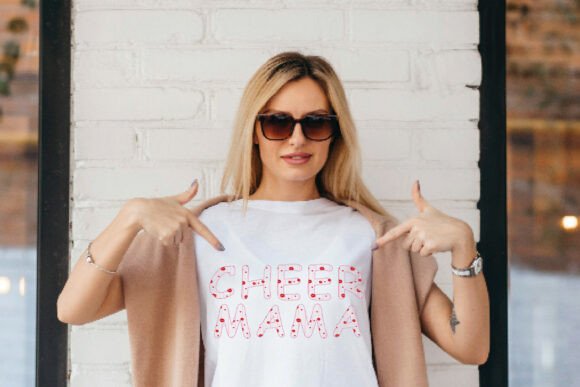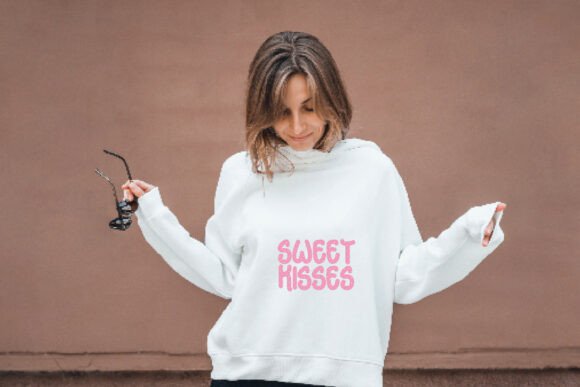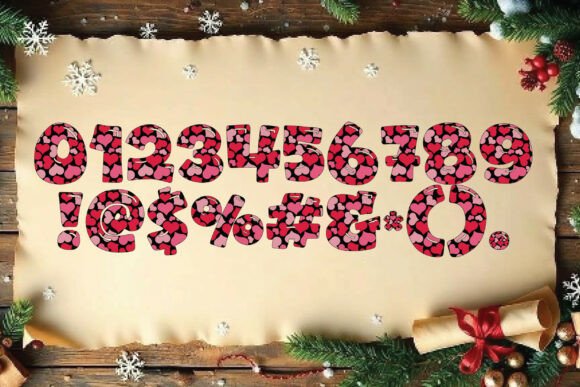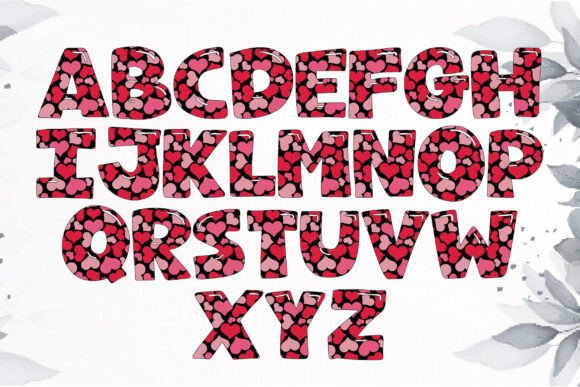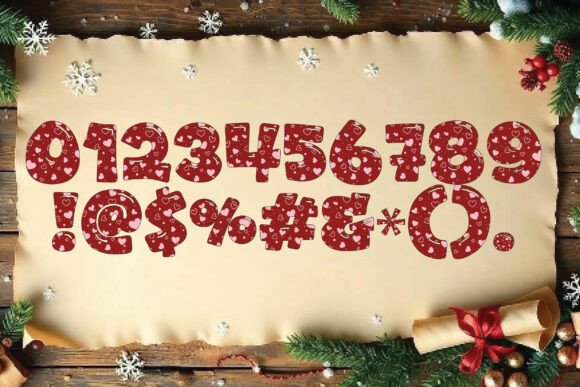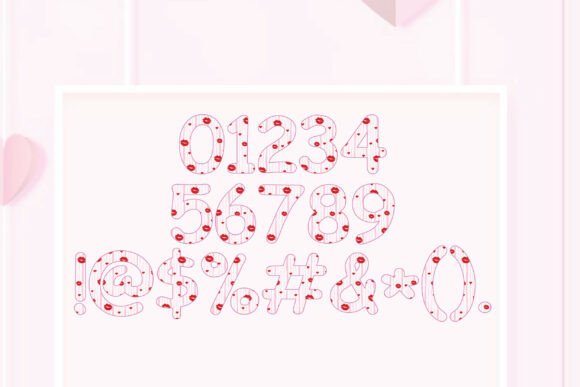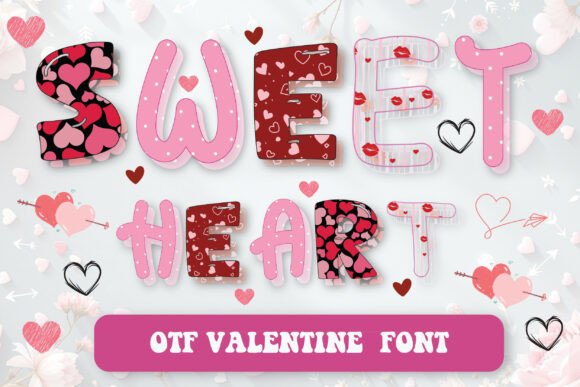
💖 Berry Dot & Valentine Font Bundle – Preppy Cute Love Alphabets
Are you looking for a way to add a touch of sweetness, romance, and trendy preppy style to your designs? Look no further than the Berry Dot & Valentine Font Bundle! This charming collection includes four adorable fonts that combine playful dotted lettering with classic Valentine love themes, perfect for a wide range of creative projects.
The Berry Dot & Valentine Font Bundle includes four unique fonts, each with its own special character:
• • Berry Dot Font – A fun and playful dotted-style lettering font that’s perfect for adding a touch of whimsy to your designs.
• • Preppy Love Font – A trendy and stylish love-themed font that’s ideal for creating modern and eye-catching designs.
• • Valentine Heart Font – A cute alphabet decorated with heart details, perfect for adding a touch of romance to your designs.
• • Valentine Love Font – A romantic and decorative Valentine lettering font that’s ideal for creating beautiful and elegant designs.
The Berry Dot & Valentine Font Bundle is perfect for a wide range of creative projects, including:
• • Valentine’s Day cards and love notes
• • Planners and stickers
• • Mugs and t-shirts
• • Scrapbooking and party decorations
• • Classroom crafts and social media graphics
Please note that due to system limitations, the font preview may appear black and white. However, the font displays fully colored when used in supported software.
The Berry Dot & Valentine Font Bundle is a must-have for designers and crafters looking to add a touch of sweetness, romance, and trendy preppy style to their designs. With its range of font styles, compatibility with a range of design software, and cost-effective pricing, this bundle is perfect for anyone looking to take their designs to the next level.